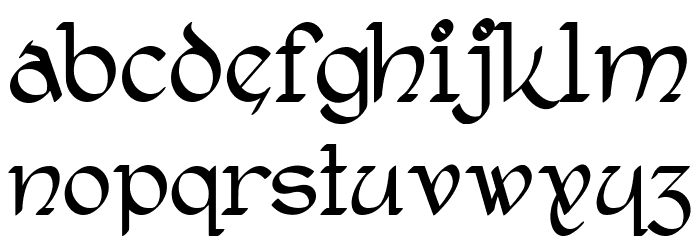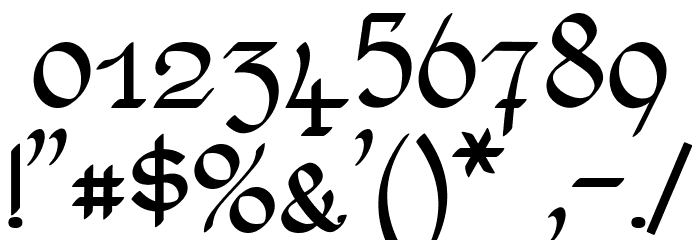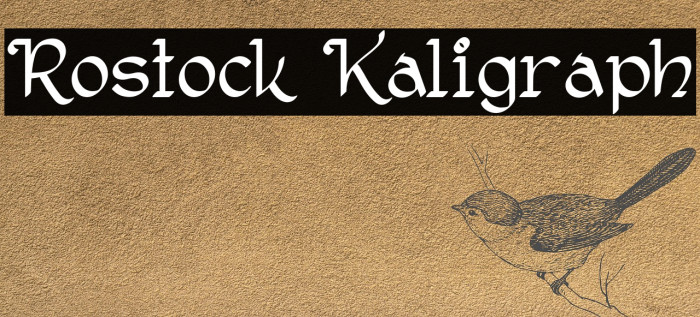
Rostock Kaligraph Font
This font exhibits a calligraphic style with a distinct flair, characterized by elegant, flowing strokes and a slight slant that adds a dynamic feel. The uppercase letters are ornate, with intricate curves and sharp serifs, while the lowercase letters maintain a consistent style, offering a harmonious blend of tradition and modernity. The numerals are bold and clear, ensuring readability, and the special characters are crafted with the same attention to detail, making them suitable for decorative purposes. The overall appearance is sophisticated and artistic, ideal for projects that require a touch of elegance and creativity.
A calligraphic font with elegant, flowing strokes and intricate details.
- Proposed Projects: Ideal for wedding invitations, formal event programs, branding for luxury products, and artistic posters.
- Category: Script
- Use Case: Headlines, Logos, Invitations